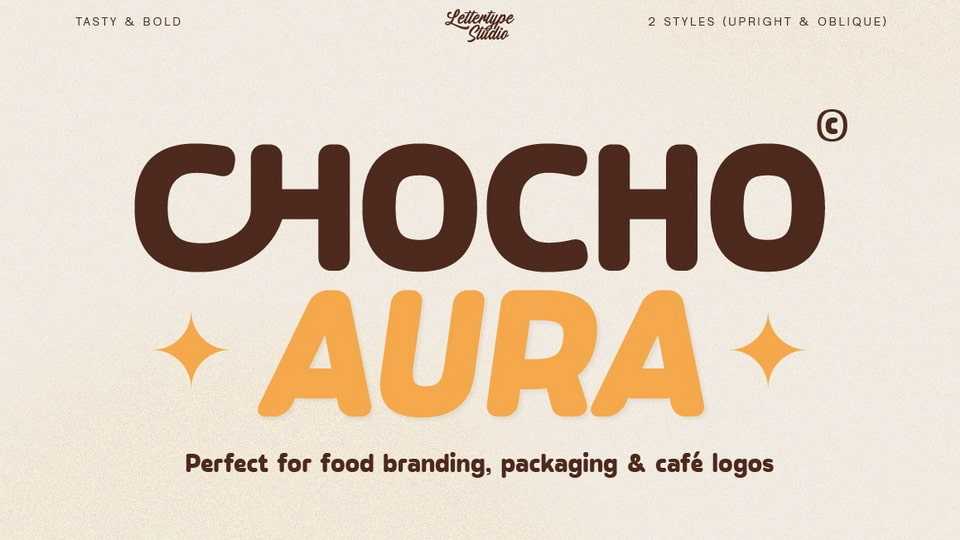
Download Chocho Aura font, a bold, rounded display typeface with a tasty personality—crafted especially for food branding, playful packaging, café logos, and anything delicious.
Designer: Lettertype Studio